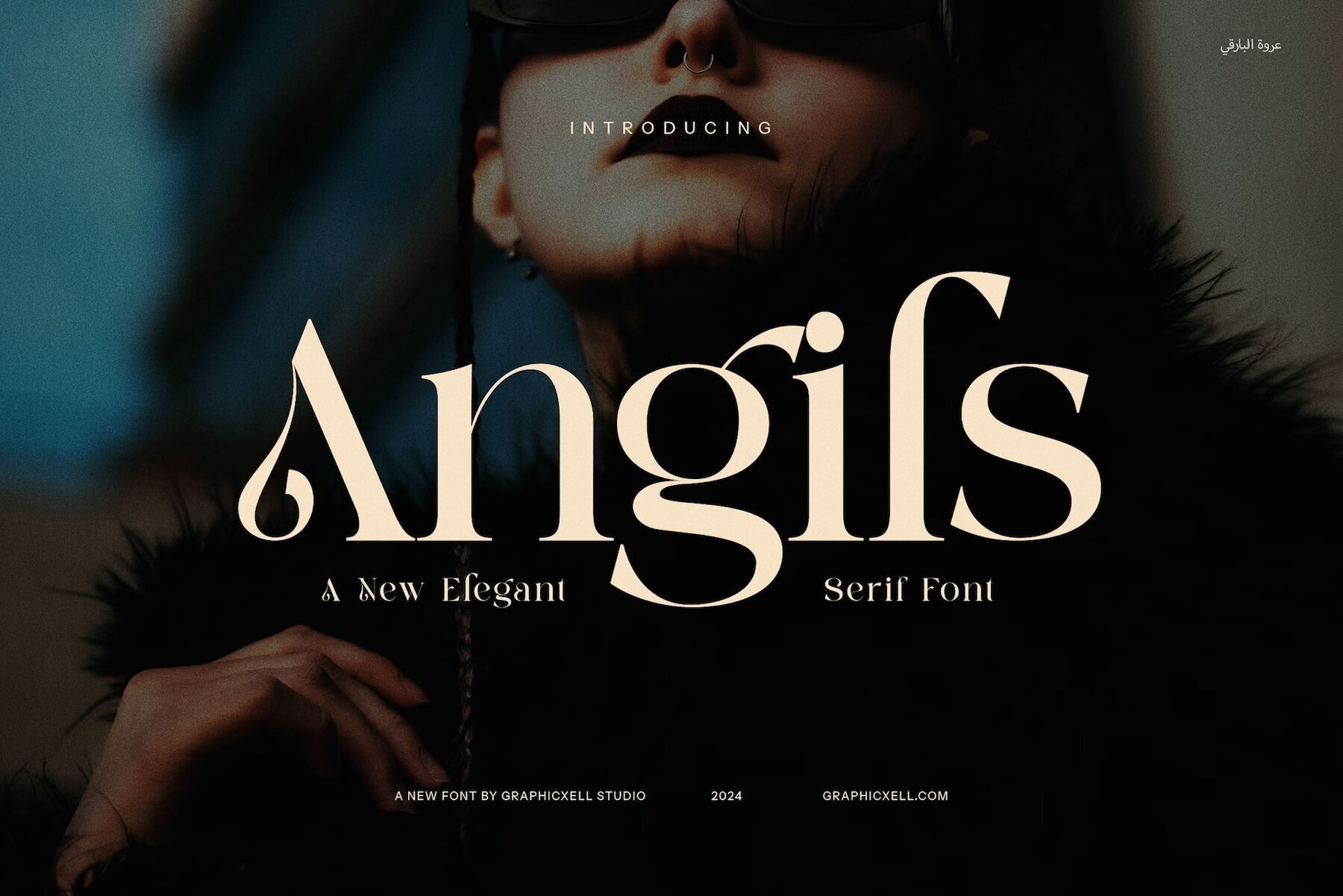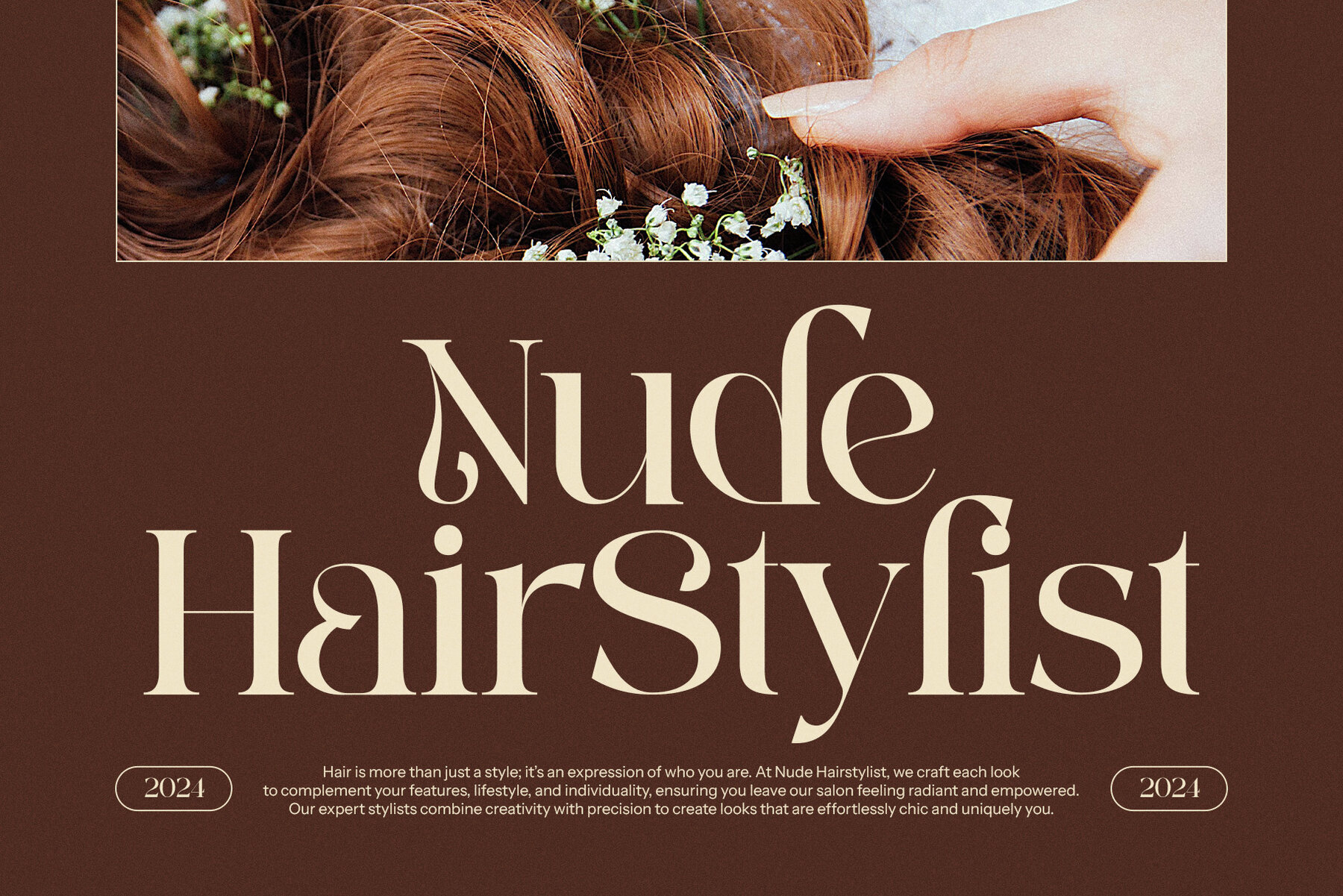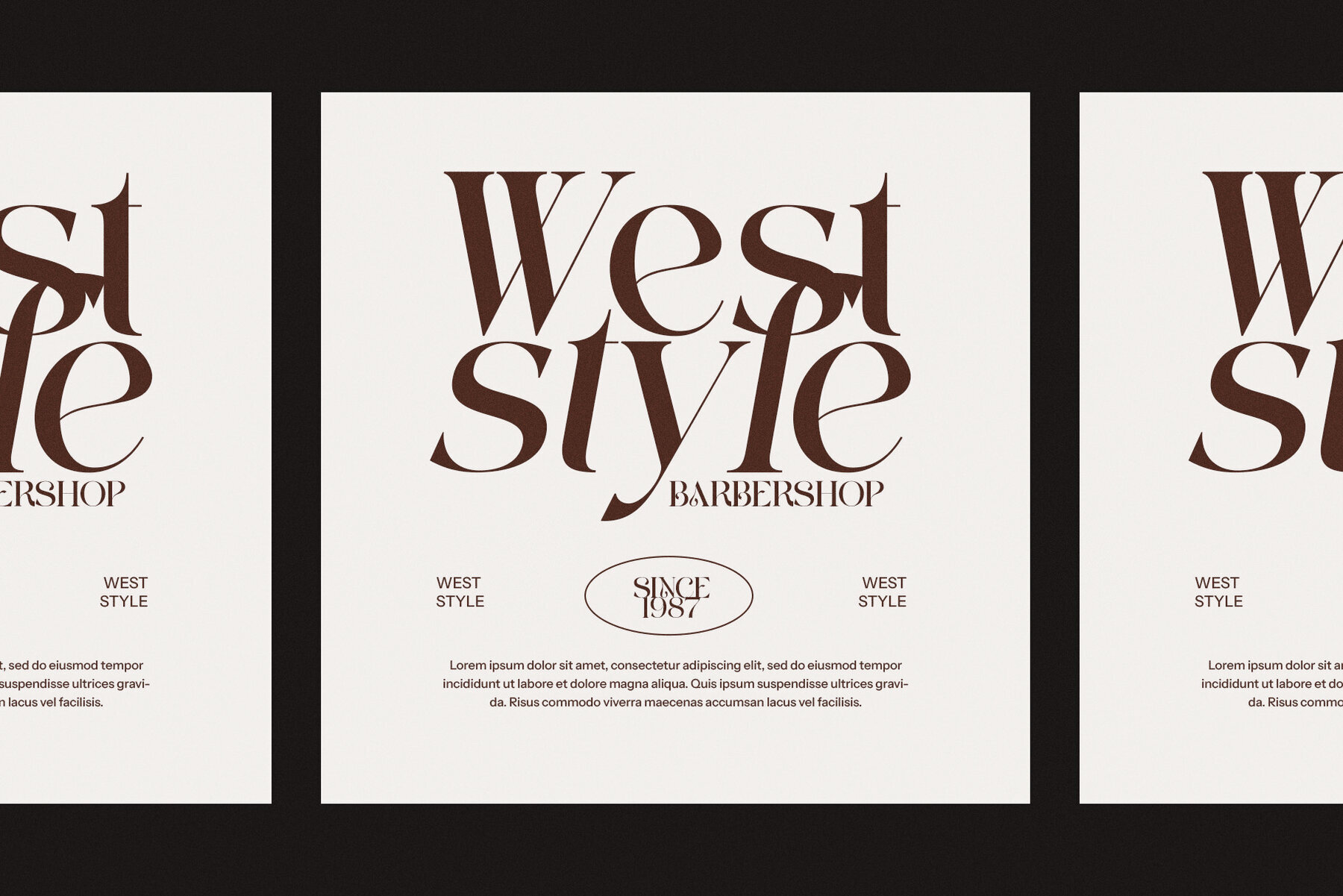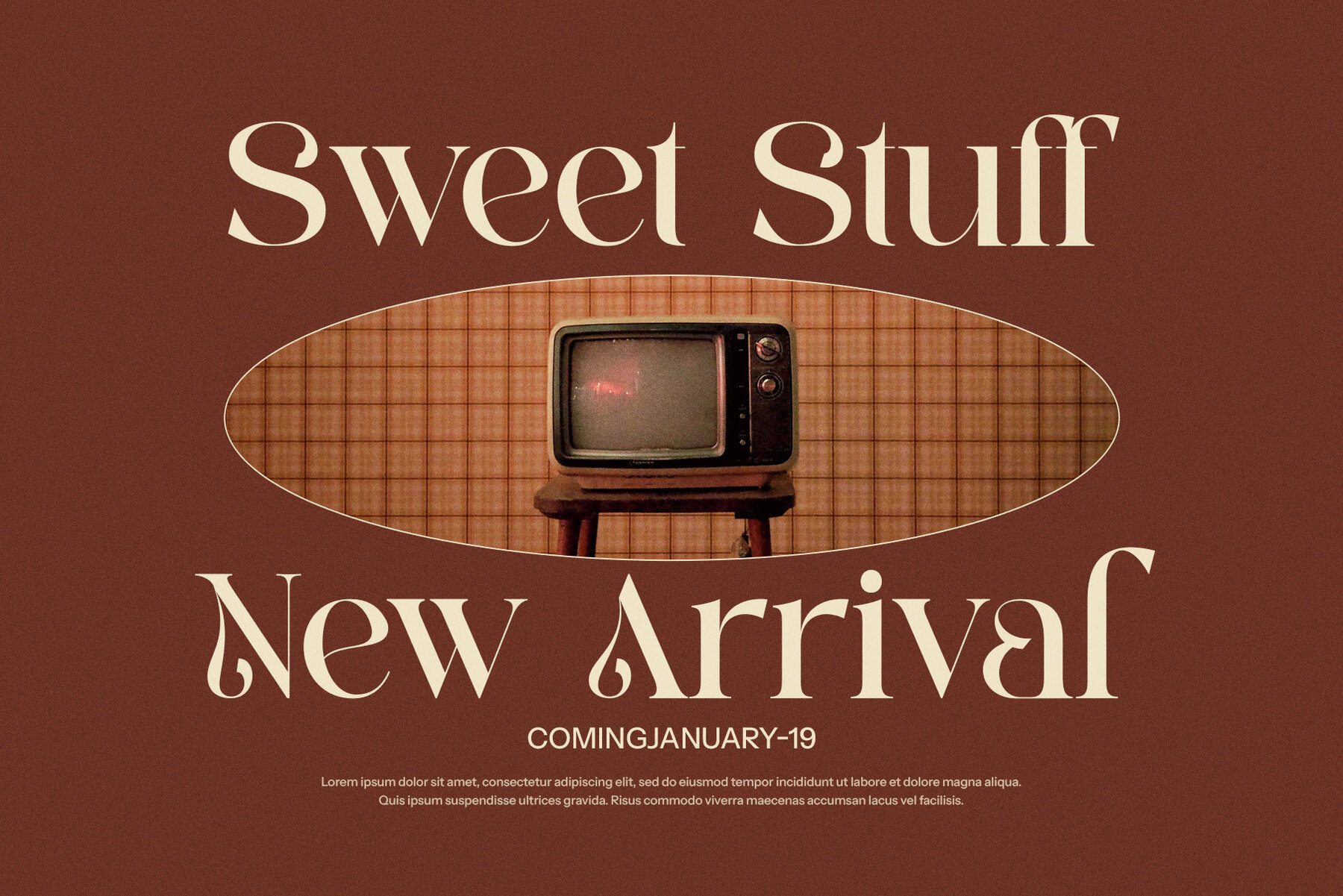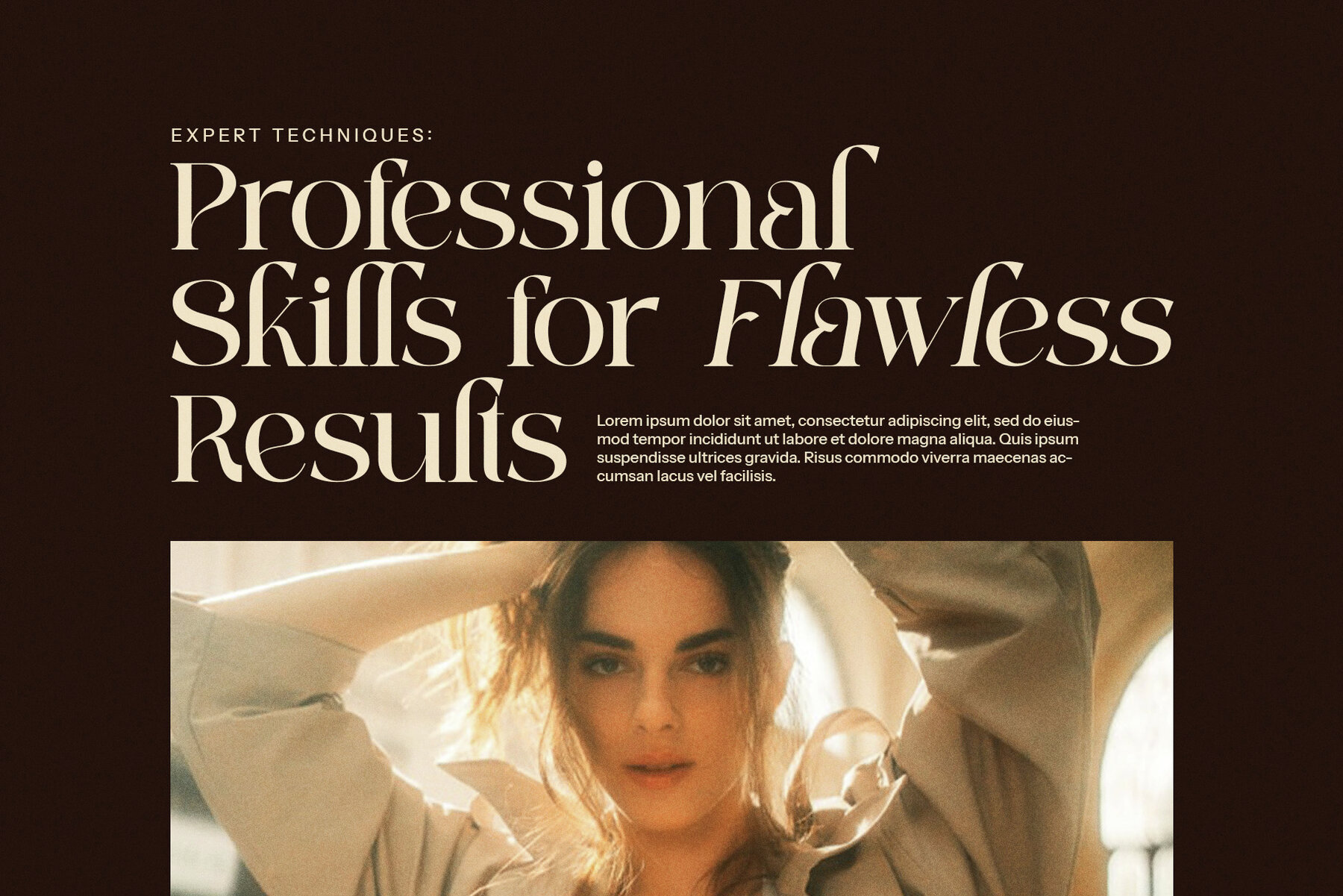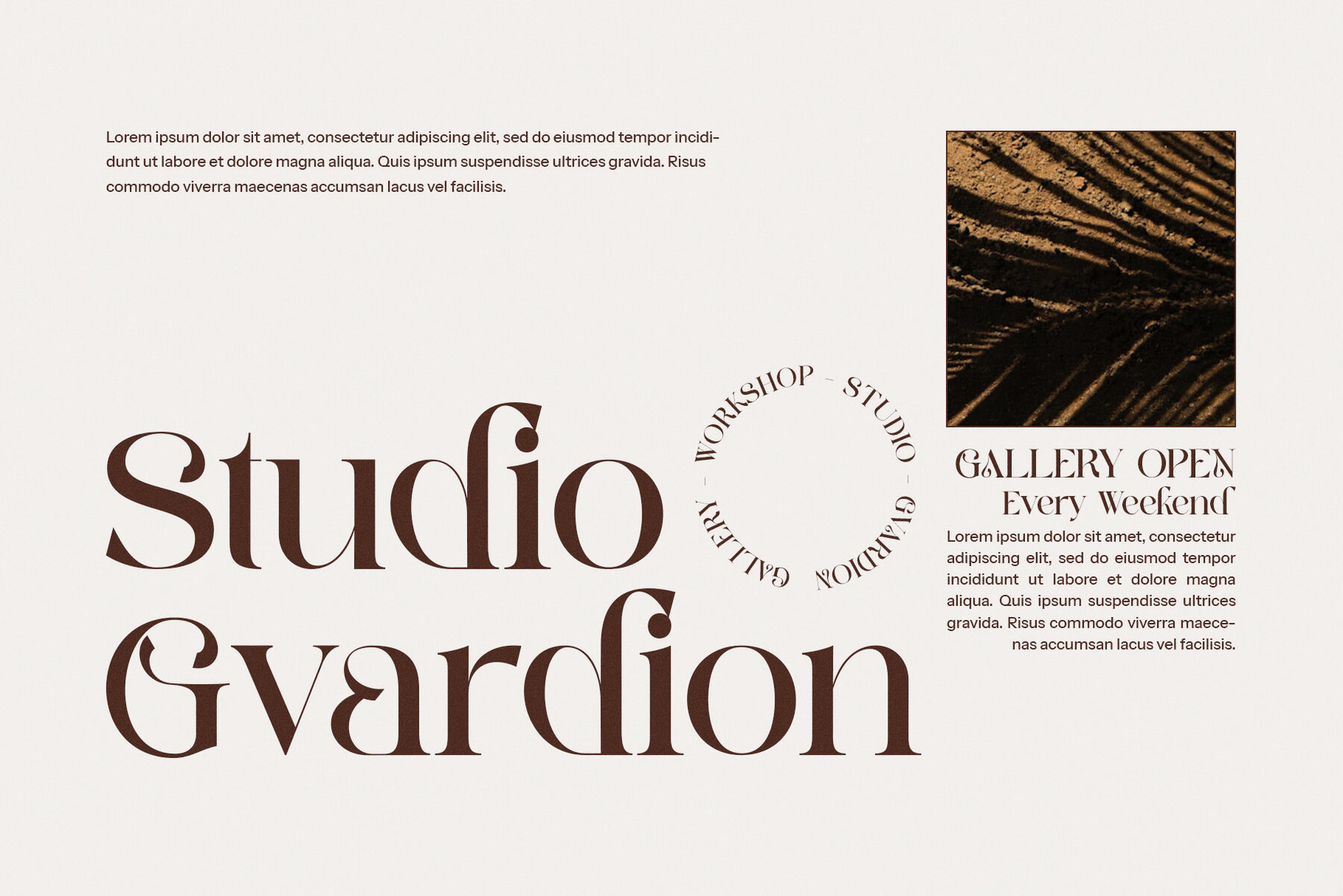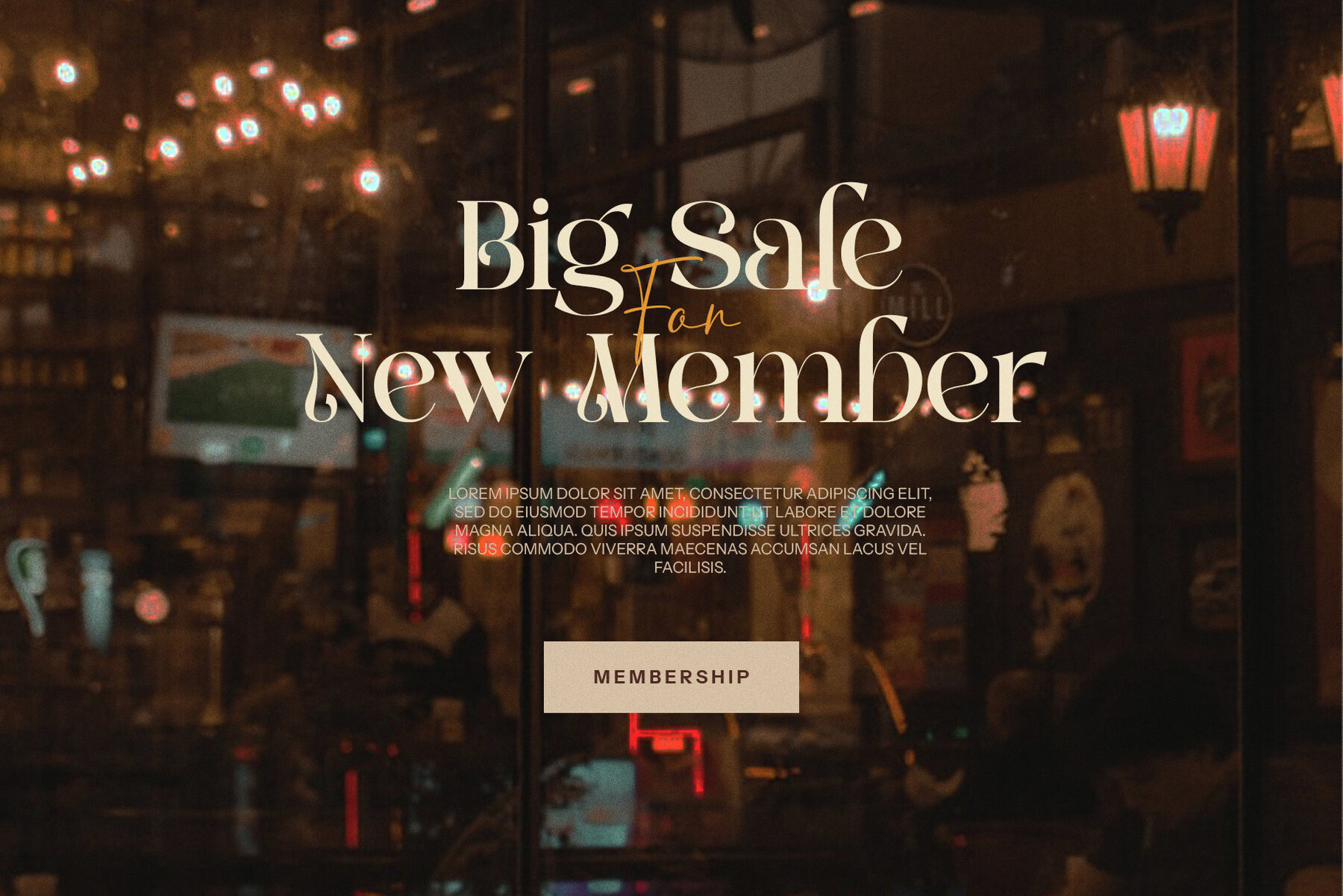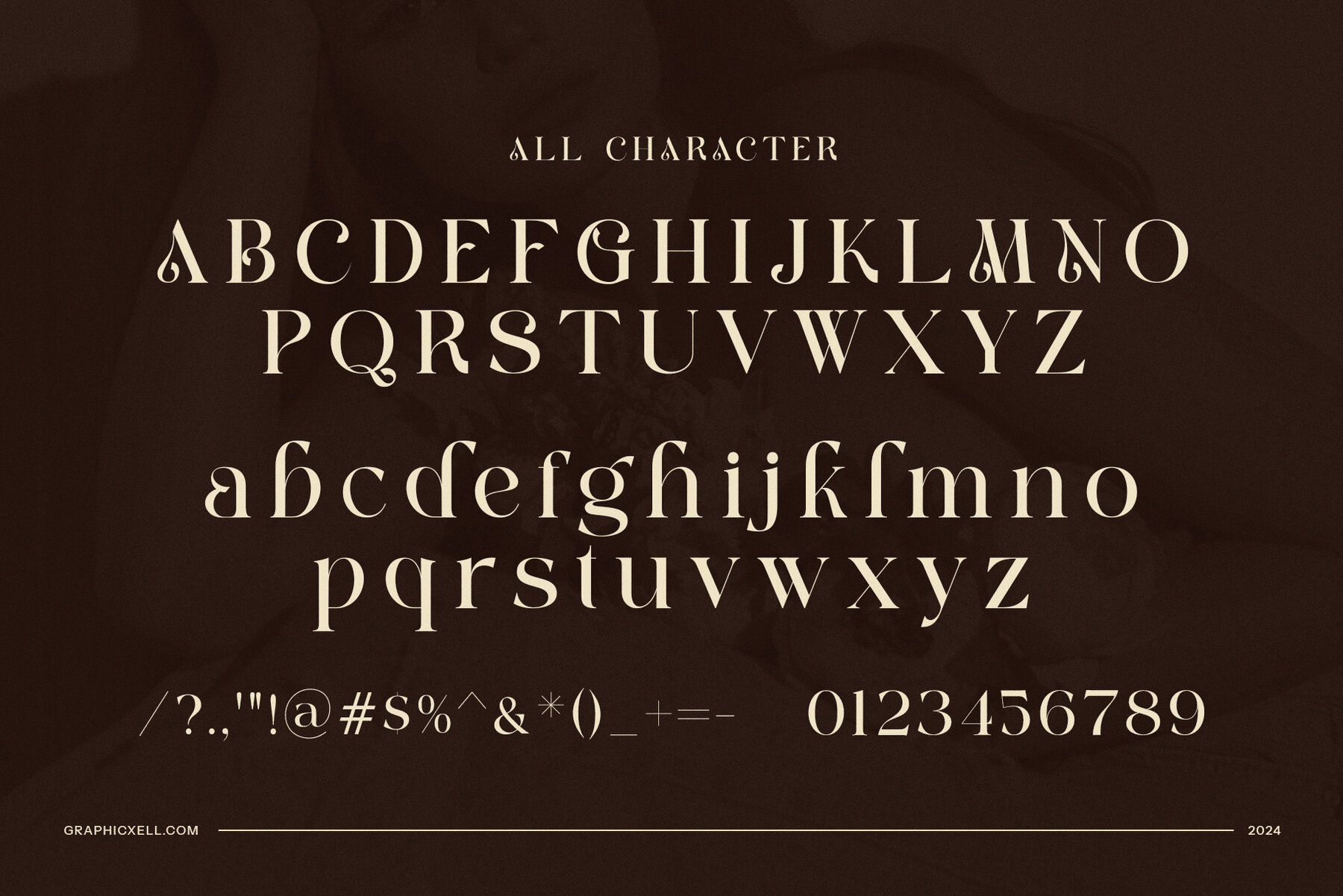
Angils
Angils Elegant Serif Font is an exquisite typeface that combines vintage allure with modern sophistication. Ideal for a vast array of design projects, this font offers a sophisticated, timeless aesthetic. Its unique letterforms and delicate curves make it perfect for brands seeking a high-end look. Whether you’re crafting a chic magazine layout, creating an upscale boutique identity, or designing a refined food label, Angils delivers a distinctive and graceful appearance that enhances any project.
This elegant typeface is highly versatile, suitable for logo design, branding, websites, and product packaging. The carefully designed serifs add a touch of classic elegance, while maintaining a contemporary edge. This balance makes Angils an excellent option for businesses and creatives aiming to stand out. Its clear readability and vintage appeal make it ideal for both print and digital media applications.
Perfect for advertising, invitations, and high-end promotional materials, Angils exudes sophistication and professionalism. Its versatility and unique charm make it essential for designers who wish to create memorable and impactful visual identities. Angils' ability to evoke both nostalgia and modernity makes it the ultimate type choice for refined, stylish, and memorable designs.